1. Introduction Canva Font Upload Tutorial
Canva Font Upload Tutorial has become one of the most popular design platforms for marketers, entrepreneurs, and content creators. Its simplicity and powerful features allow users to create professional designs without advanced design skills. However, many designers eventually face one limitation: default fonts.
This Canva Font Upload Tutorial will guide you through the complete process of uploading custom fonts to Canva and show how premium fonts from Edric Studio can instantly elevate your designs with originality and brand consistency.
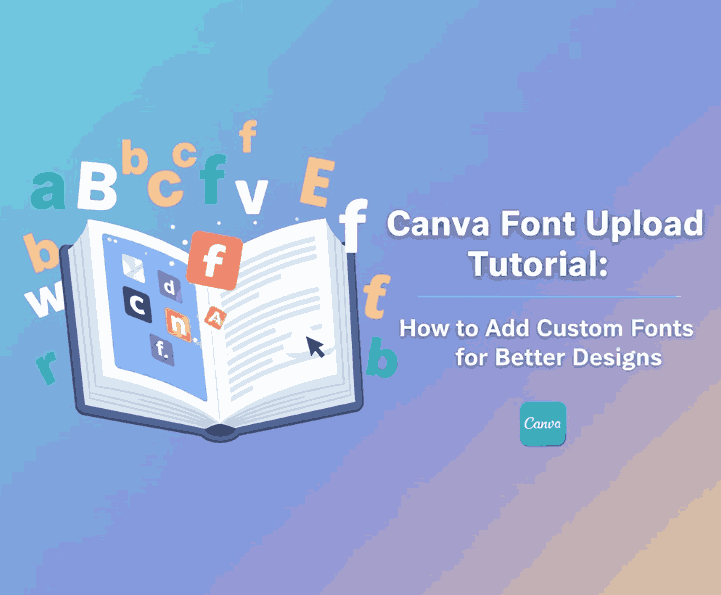
2. Why Canva Font Upload Tutorial?
Uploading custom fonts to Canva offers several important advantages:
- Brand consistency across all marketing materials
- Unique visual identity not shared with other Canva users
- Creative flexibility for different design styles
- Professional appearance for logos, social media, and presentations
For designers and brands, custom fonts are no longer optional—they are essential.
3. Canva Font Upload Tutorial Requirements
Before uploading fonts, make sure you meet Canva’s requirements:
- You must use Canva Pro, Canva Teams, or Canva for Education
- Font upload is available via Brand Kit
- You must own the font license or have permission to use it
Free Canva accounts currently do not support font uploads.
4. Supported Font Formats in Canva
5. Step-by-Step Canva Font Upload Tutorial
Follow these simple steps to upload fonts to Canva:
Step 1: Open Brand Kit
Log in to Canva and go to Brand → Brand Kit.
Step 2: Upload Your Font
Click “Upload a font”, then select your font file (TTF or OTF).
Step 3: Confirm Font License
Canva will ask you to confirm that you have the right to use the font. Check the box and proceed.
Step 4: Font Ready to Use
Once uploaded, your font will appear under Brand Fonts and in the text font list.
That’s it—your custom font is now available across all Canva designs.
6. How to Use Canva Font Upload Tutorial Designs
After uploading:
- Open or create a design
- Add a text element
- Open the font dropdown
- Scroll to Uploaded Fonts or Brand Fonts
- Select your custom font
You can now apply your font to headlines, body text, logos, and social media graphics.
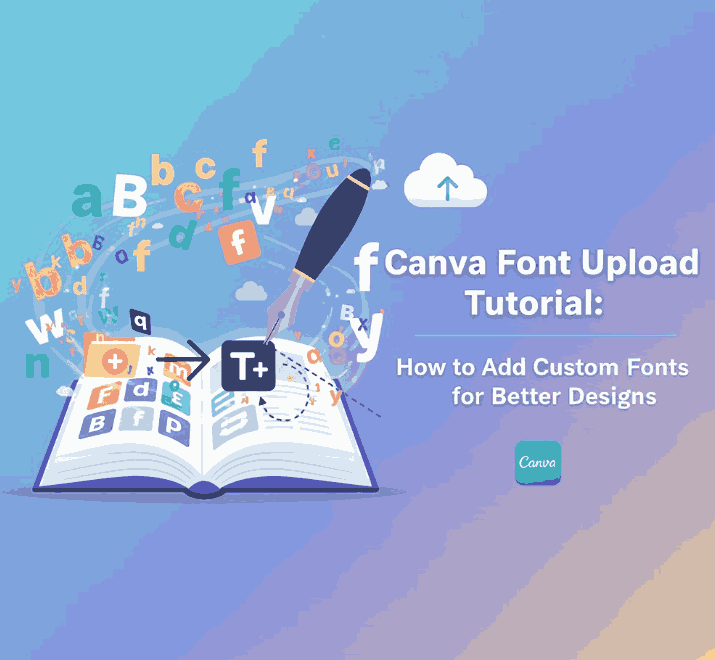
7. Canva Font Upload Tutorial Examples from Edric Studio
These fonts demonstrate how custom typography can dramatically transform Canva designs.
8. Best Practices When Using Custom Canva Font Upload Tutorial
To get the best results from uploaded fonts:
- Use display fonts for headlines, not long paragraphs
- Combine bold fonts with clean sans-serif fonts
- Maintain sufficient spacing for readability
- Avoid using too many custom fonts in one design
- Test font visibility on different screen sizes
Good typography enhances clarity and visual impact.
9. Common Problems and Solutions
Font Not Showing?
- Make sure you uploaded the font via Brand Kit
- Check file format compatibility
Upload Failed?
- Ensure the file is not corrupted
- Re-download the font and try again
Licensing Warning?
- Confirm you own or have rights to use the font
Most issues can be solved quickly by rechecking file format and account type.
10. Conclusion
This Canva Font Upload Tutorial proves that uploading custom fonts is a simple but powerful way to improve your designs. With the right fonts, Canva becomes a flexible branding tool rather than just a template-based editor.